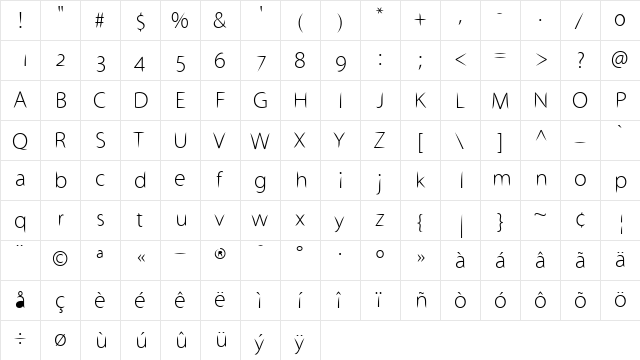
Stewart Sans Normal
| Foundry | Cher Stewart |
| Designer | Cher Stewart |
Design Context for Stewart Sans Typeface
Stewart Sans takes a measured approach to typography — its balanced proportions and neutral character make it a reliable workhorse for both digital and print work.